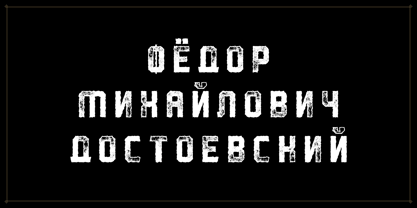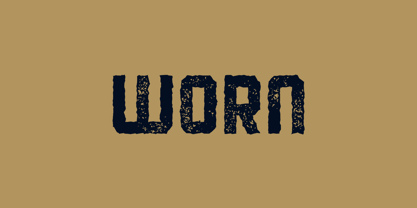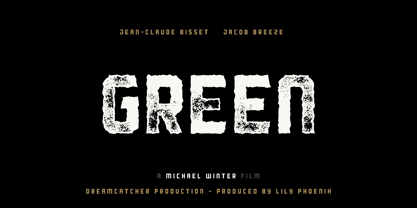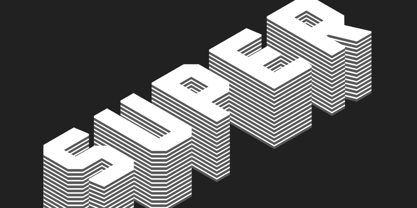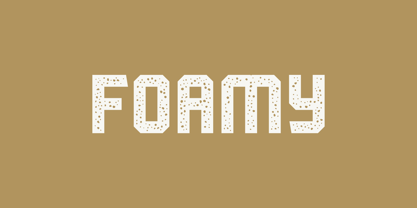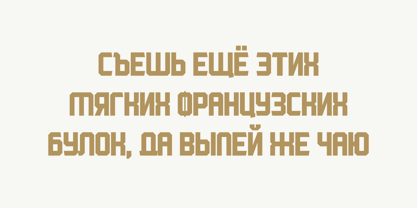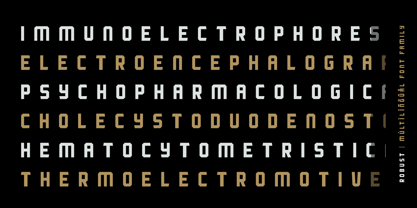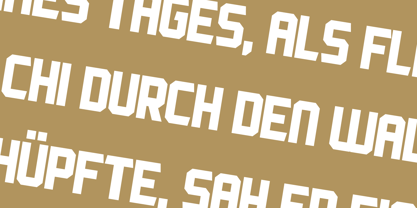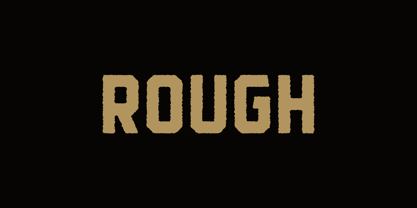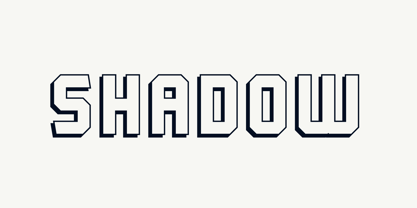
Robust
by AlperCakici
The Robust Font Family was designed by Alper Çakıcı and published by AlperCakici. Robust contains 48 styles and family package options.
Robust is a bold, expressive type collection designed for maximum impact and rich visual character. Featuring 40+ handcrafted styles—from Calligraphic and Cookie to Dirt, Foamy, Noise, Cluster, Worn, Outline, Shadow, and more—Robust offers an extensive toolbox for branding, posters, packaging, logos, and standout display typography. Each style includes both upright and italic variants, with additional Rough and Rounded versions that add texture, warmth, or grit depending on your creative needs. Robust supports 123 languages, including extended Latin and Cyrillic, making it a versatile global solution for designers seeking personality and power in every letter. This is a bold font family built for bold ideas.